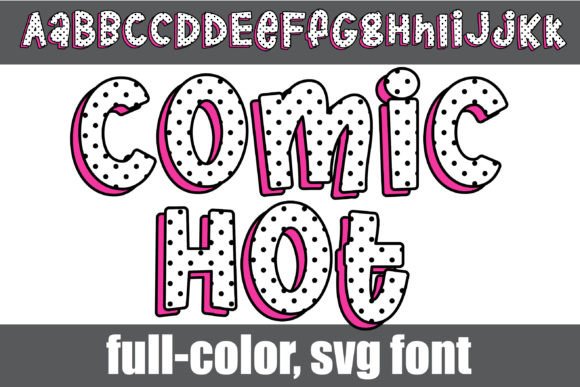
Introducing Comic Hot Font: The Ultimate Full-Color Font for Your Creative Projects
Are you looking for a font that can add a pop of color and fun to your designs? Look no further than the Comic Hot Font, a full-color font that features comic-style lettering in pink and black. This versatile font is perfect for a variety of projects, from crafting and scrapbooking to graphic design and digital art.
What is a Full-Color SVG Font?
A full-color SVG font is a type of font that uses Scalable Vector Graphics (SVG) to render images. Unlike traditional fonts that are made up of a single color, full-color SVG fonts can display multiple colors and intricate designs. This makes them perfect for creating visually appealing text and graphics.
Features of Comic Hot Font
The Comic Hot Font is a unique and exciting font that offers a range of features, including:
- Full-color design: The font features comic-style lettering in pink and black, adding a fun and playful touch to your designs.
- Alt version of each letter: Each letter has an alternative version in a different color, which can be accessed through your system or Silhouette’s character map.
- High-quality design: The font is designed to be high-quality and versatile, making it perfect for a range of projects.
- SVG format: The font is in SVG format, which means it can be scaled up or down without losing any quality.
Benefits of Using Comic Hot Font
There are many benefits to using the Comic Hot Font in your designs, including:
- Unique and eye-catching designs: The font’s full-color design and comic-style lettering make it perfect for creating unique and eye-catching designs.
- Versatility: The font can be used for a range of projects, from crafting and scrapbooking to graphic design and digital art.
- High-quality output: The font’s SVG format ensures that your designs will be high-quality and scalable.
Uses for Comic Hot Font
The Comic Hot Font is a versatile font that can be used for a range of projects, including:
- Crafting and scrapbooking: The font is perfect for creating fun and colorful titles and captions for your scrapbook pages and craft projects.
- Graphic design: The font can be used to create eye-catching graphics and text for your website, social media, or marketing materials.
- Digital art: The font can be used to add text and graphics to your digital art, such as illustrations and paintings.
- Sign making: The font can be used to create colorful and eye-catching signs for your business or home.
Tips and Tricks for Using Comic Hot Font
Here are some tips and tricks for getting the most out of the Comic Hot Font:
- Experiment with different colors: Try out different color combinations to create unique and eye-catching designs.
- Use the font in combination with other fonts: Combine the Comic Hot Font with other fonts to create interesting and dynamic text effects.
- Adjust the font size: Adjust the font size to create different effects, such as large titles or smaller captions.
- Use the font for digital and print projects: The font can be used for both digital and print projects, making it a versatile addition to your design toolkit.
The Comic Hot Font is a unique and versatile font that can add a pop of color and fun to your designs. With its full-color design, alternative letters, and high-quality SVG format, it’s perfect for a range of projects, from crafting and scrapbooking to graphic design and digital art. Whether you’re a seasoned designer or just starting out, the Comic Hot Font is a great addition to your design toolkit.